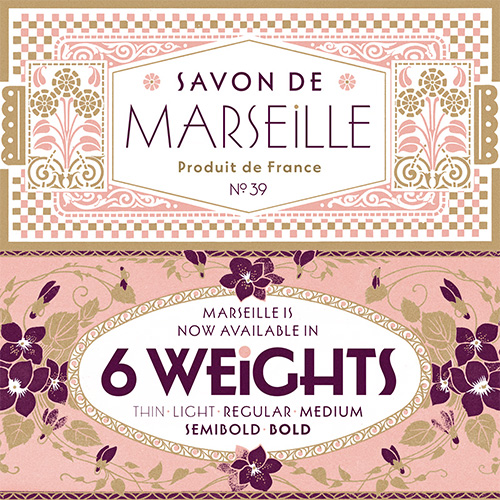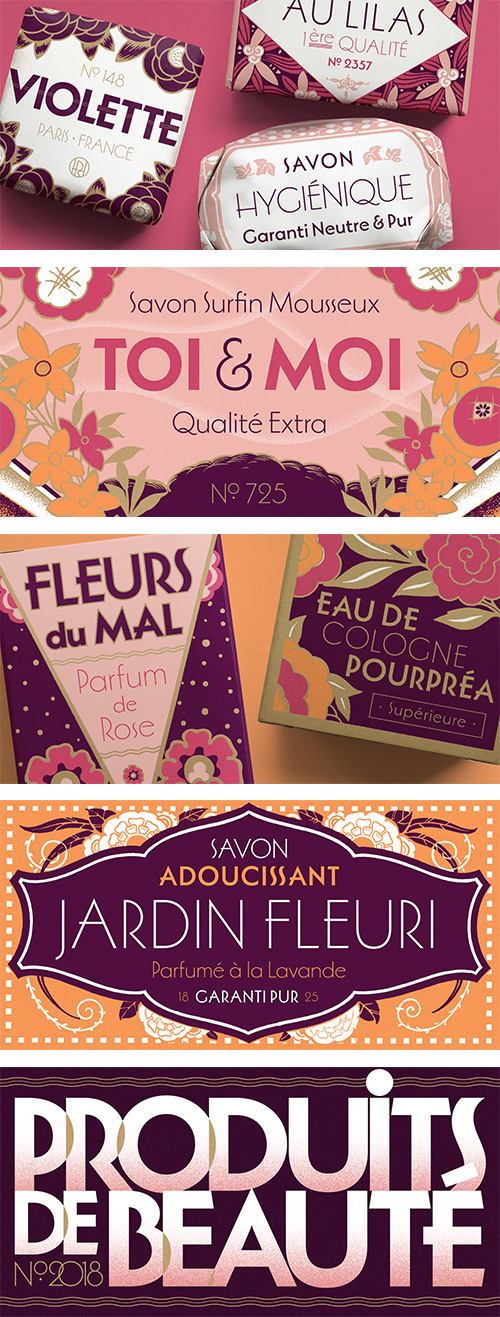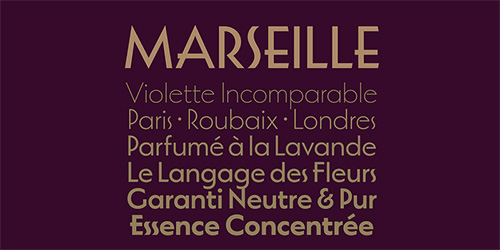
Marseille - 6 Static Styles + 1 Variable
- Marseille is an Art Deco-inspired typeface which is based on Louise Fili’s iconic cover design for the hauntingly beautiful Marguerite Duras novel, The Lover. The font is available in six irresistible weights: thin, light, regular, medium, semibold, and bold. Each weight features both caps and lower case, and supports over 200 languages. Marseille will satisfy all your typographic needs, from book jackets to monograms to packaging, logos, and even wedding invitations—timelessly elegant, with a distinctive flair that exudes La Belle France.